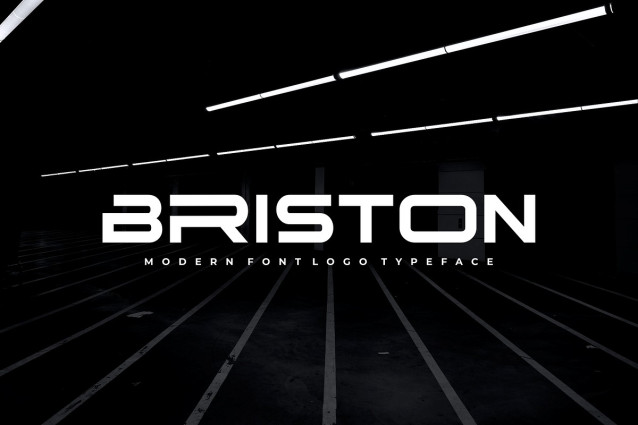
Briston Sans Font
Briston Sans Font is a strong bold sans serif, with solid lines, paired with bold yet soft rounding. It’s perfect for logotypes, signage, branding, apparel, posters, social media, headlines, titles, large format prints and more.